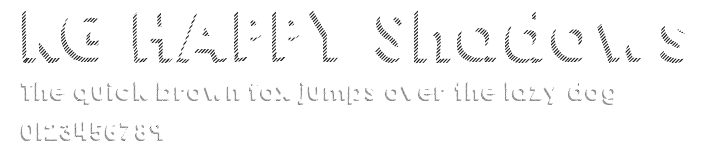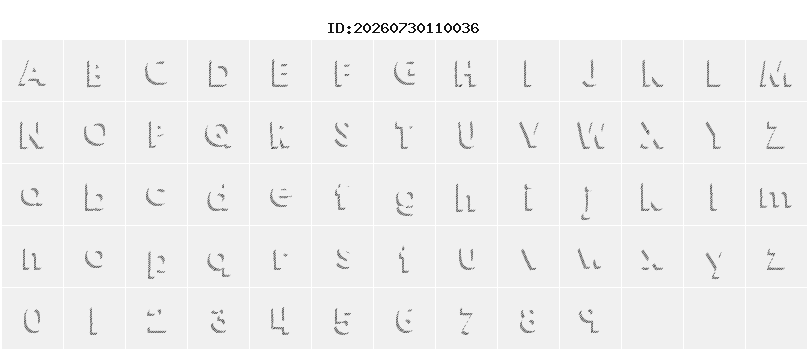
• Font Name: KG HAPPY Shadows
• Full Font Name: KG HAPPY Shadows
• Designer: Kimberly Geswein
• Manufacturer: Kimberly Geswein
About KG HAPPY Shadows.ttf
KG HAPPY Shadows.ttf is a modern, elegant sans-serif font designed for ultimate readability and visual harmony. Perfect for branding, headlines, web design, and print materials.